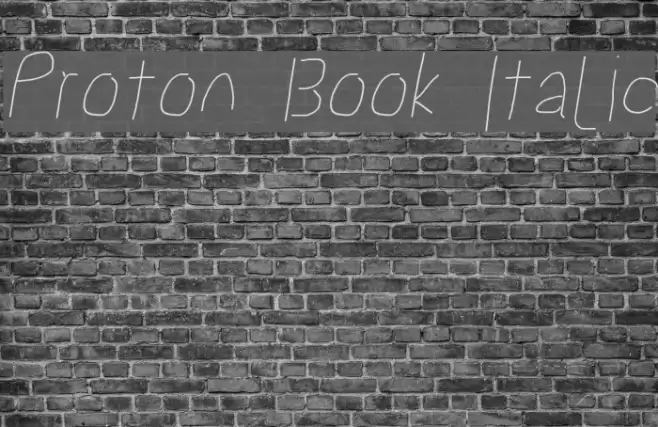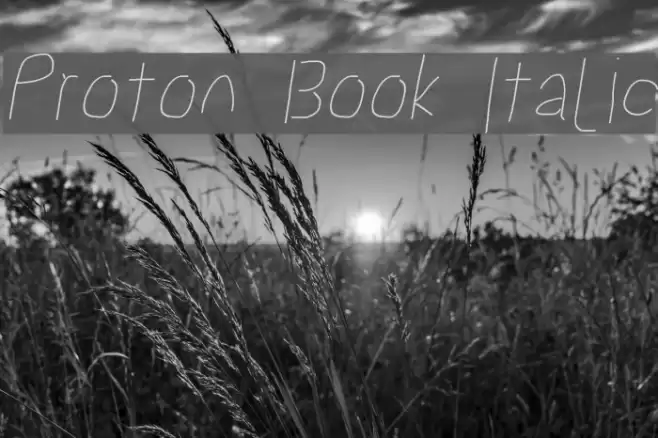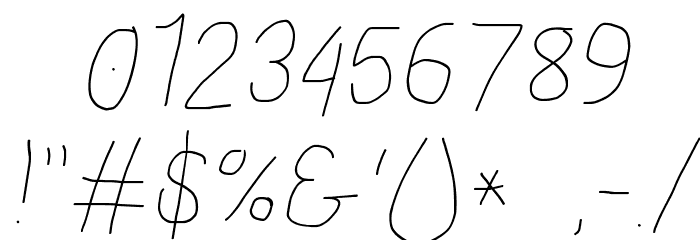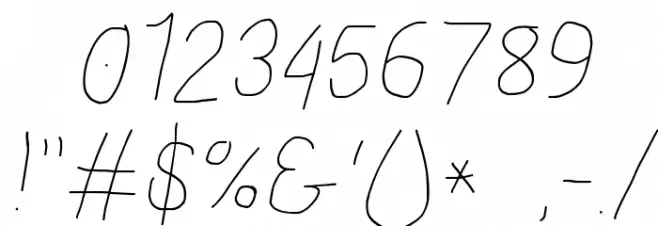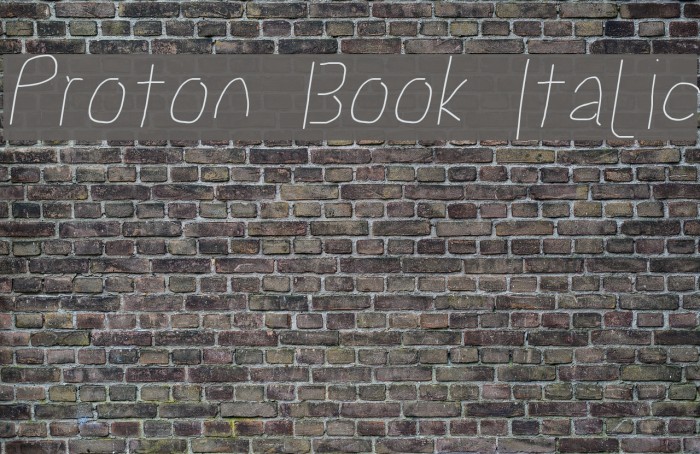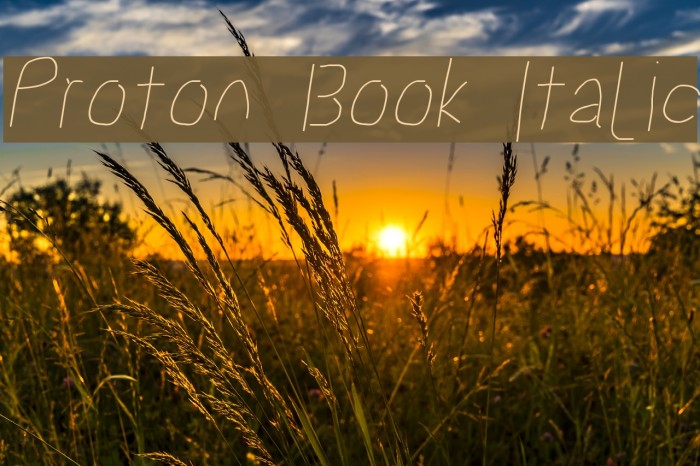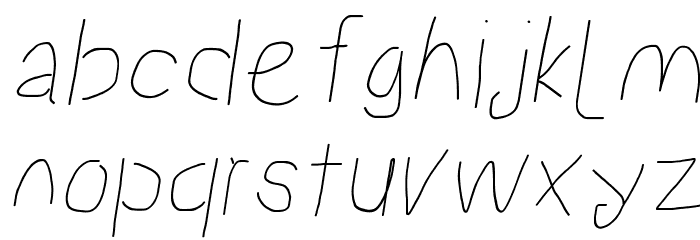
Proton Book Italic
This font features a clean, handwritten style with a slight slant, giving it an informal yet elegant appearance. The characters are thin and elongated, with a consistent stroke width that maintains a uniform look throughout. The uppercase letters are distinct and slightly taller than the lowercase, which are rounded and smooth. Numbers and special characters follow the same style, ensuring a cohesive look across all elements. The font's simplicity and clarity make it versatile for various design applications.
A clean, handwritten font with a slight slant and uniform stroke width.
- Proposed Projects: Ideal for personal branding, invitations, greeting cards, and casual digital content.
- Use Case: Logos, Invitations, Casual text